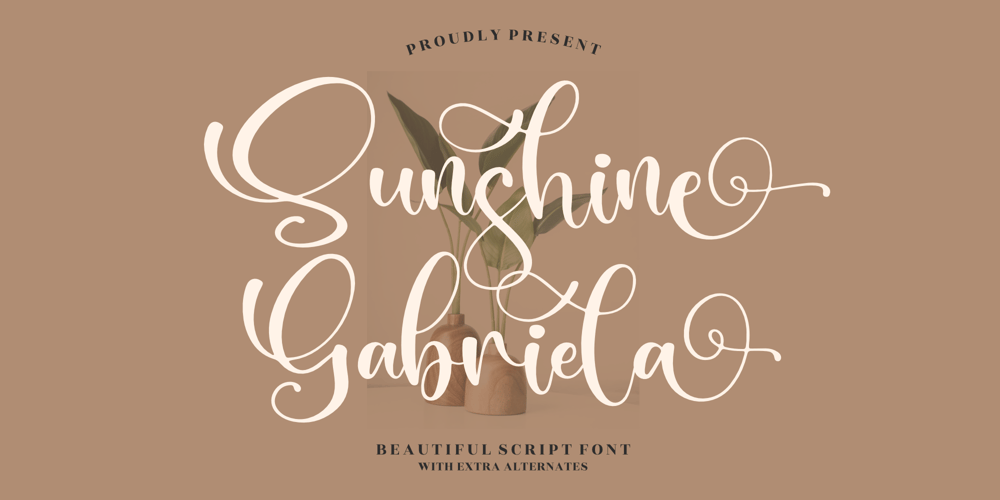
Sunshine Gabriela
Sunshine Gabriela font
Sunshine Gabriela Font Family was designed by Heru Utama Putra and published by Letterena Studios. Sunshine Gabriela contains 2 styles and family package options. Sunshine Gabriela is a beautiful script font, suitable for any projects such as logos, branding projects, homeware designs, product packaging, mugs, quotes, posters, shopping bags, t-shirts, book covers, name cards, invitation cards, or greeting cards. You can also use it for labels, photography, watermark, special events, and all your other lovely projects that need a beautiful script taste.